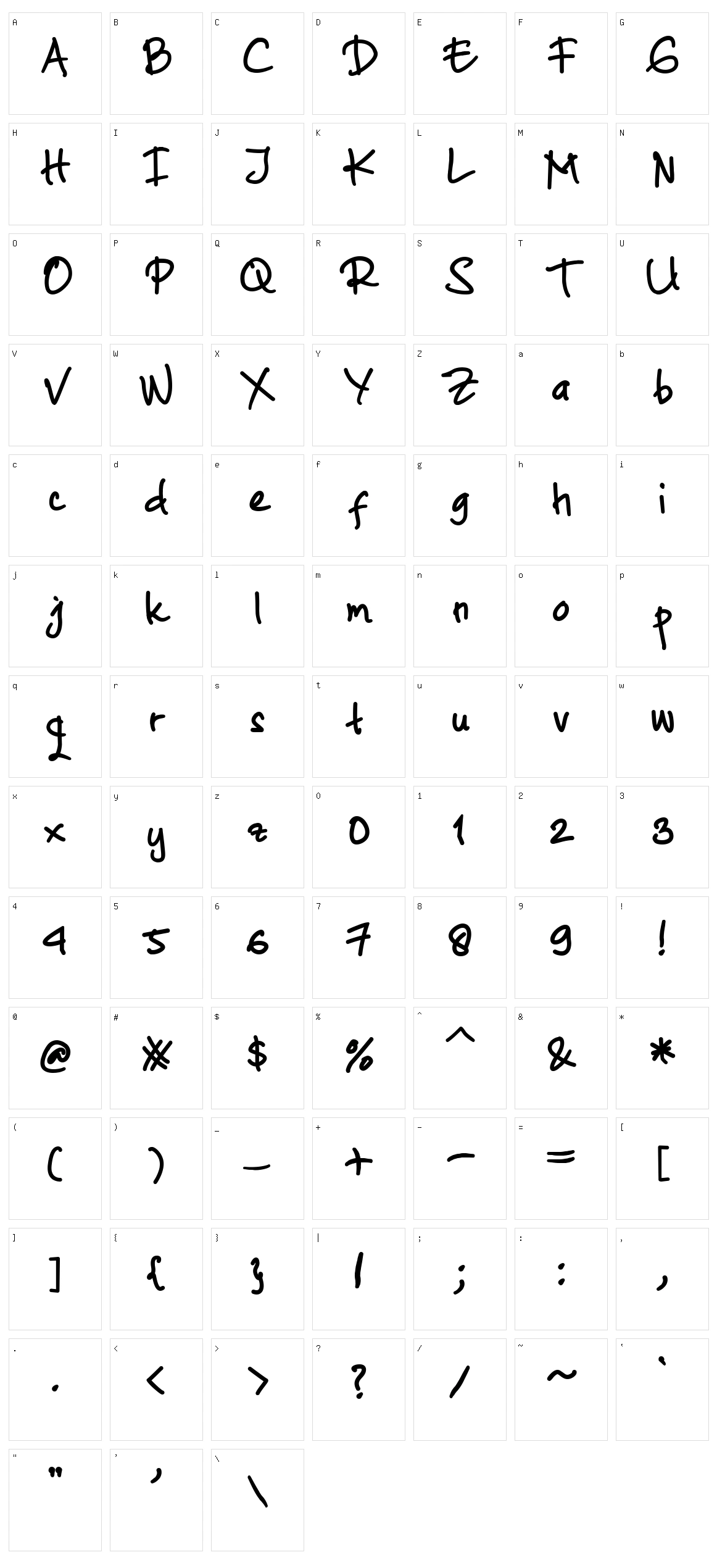
The free font Ato is carefully designed by Muchammad Wahono Sapto Adi Saputro, showcasing a thoughtful balance of creativity and usability and falls under the Script font style. When you download the ZIP file, it contains only 66.74 KB of font files, making it lightweight and quick to download. Please review the license details below to understand permitted usage and distribution rights. If license information is not available, we recommend using this font for personal projects only or contacting the author directly for commercial usage permissions.